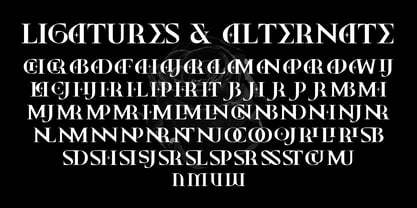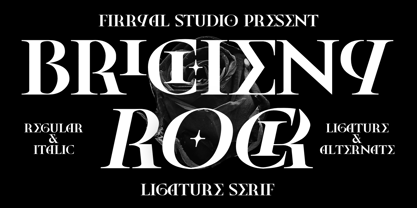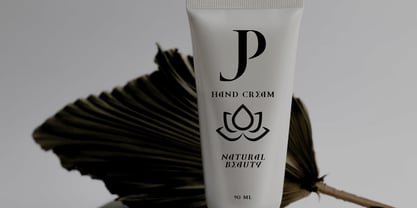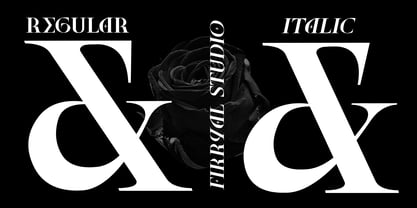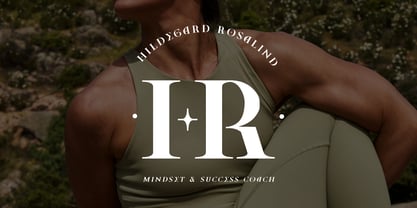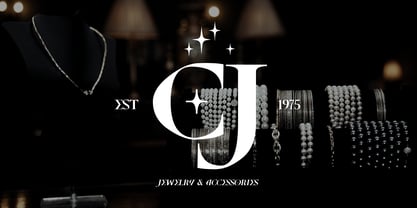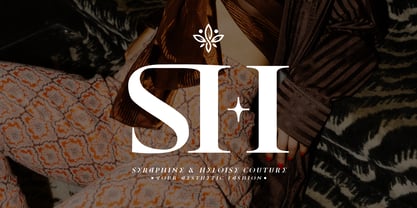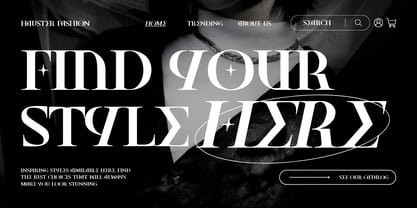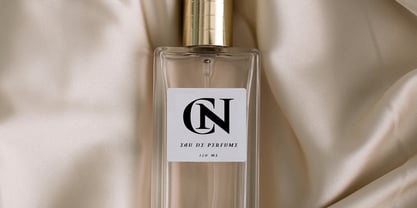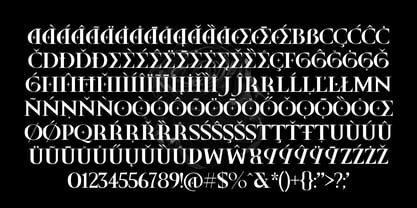
Bricheny Rock
by Fikryal
The Bricheny Rock Font Family was designed by Muhammad Fikry and published by Fikryal. Bricheny Rock contains 2 styles and family package options.
Bricheny Rock is an display serif with elegant, and modern character. It comes in two styles, Regular and Italic, and features a wide range of ligatures and alternates that create unique and sophisticated letter combinations.
Designed to exude luxury and class, Bricheny Rock is perfect for branding, logos, editorial design, packaging, typography projects, and more. With its refined details and well-balanced structure, this font will make your designs stand out and look highly professional.
Features:
• 2 Styles (Regular & Italic)
• Extensive Ligatures & Alternates
Bring an elegant and exclusive touch to your designs with Bricheny Rock!